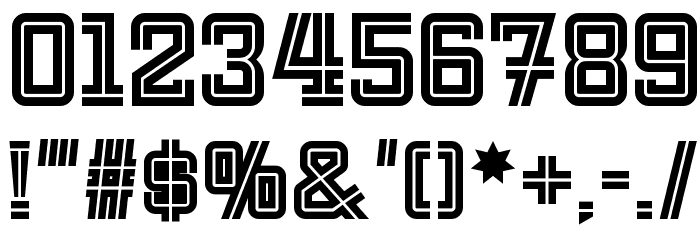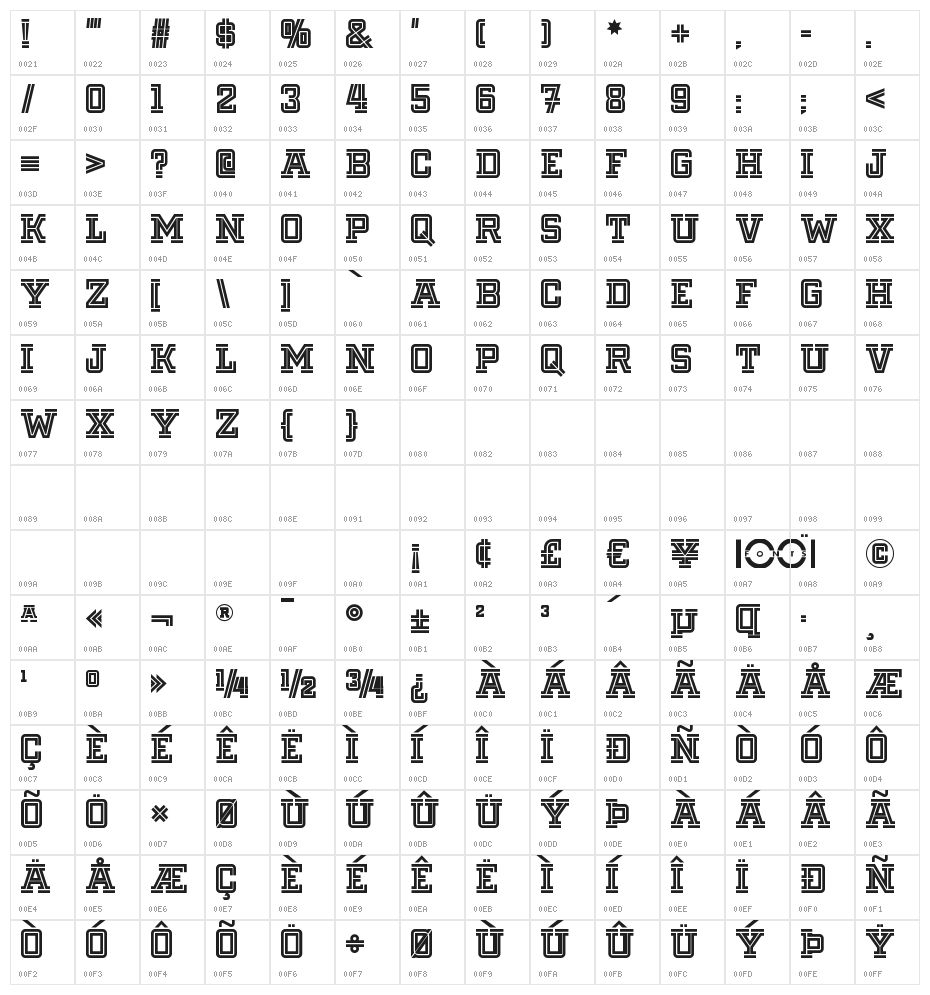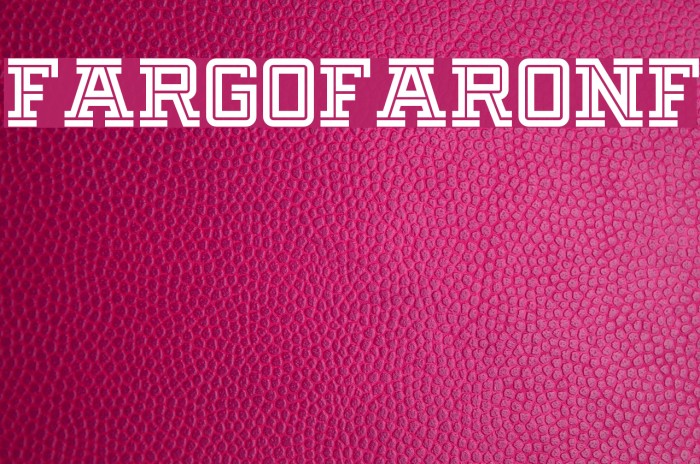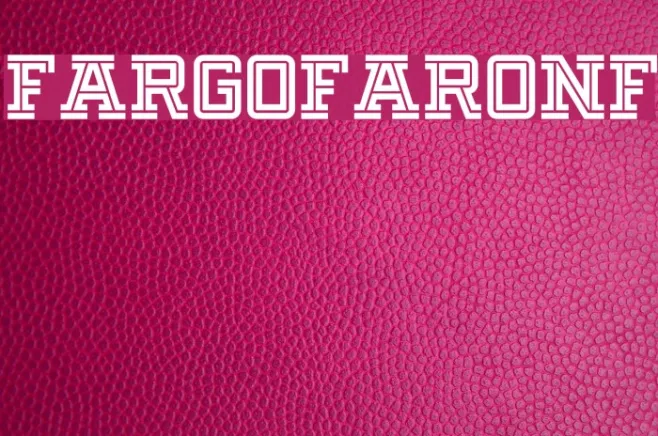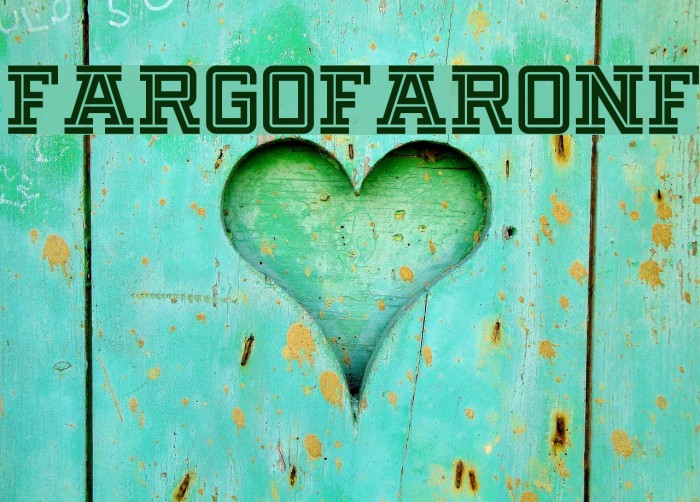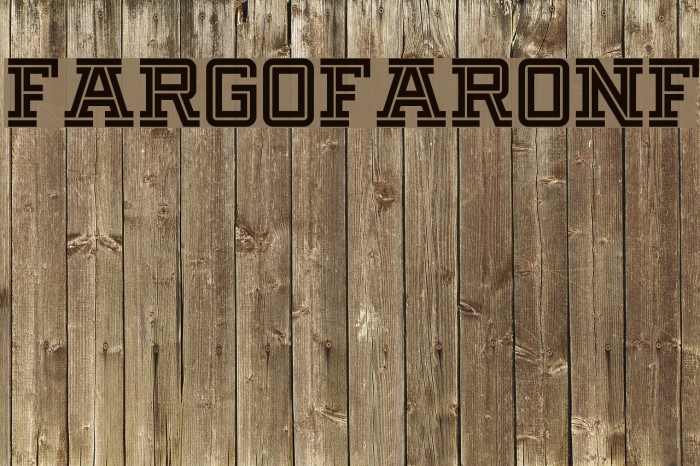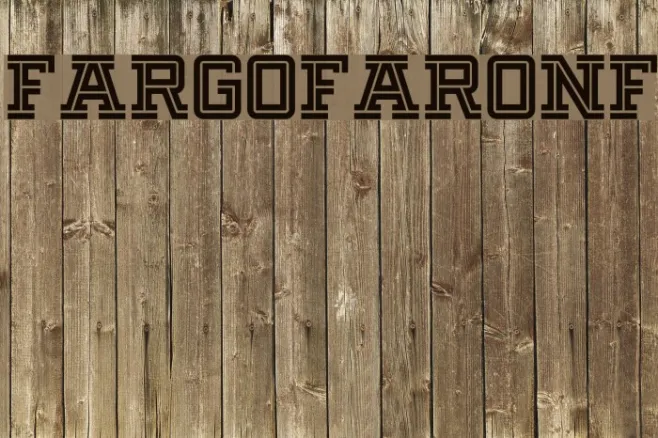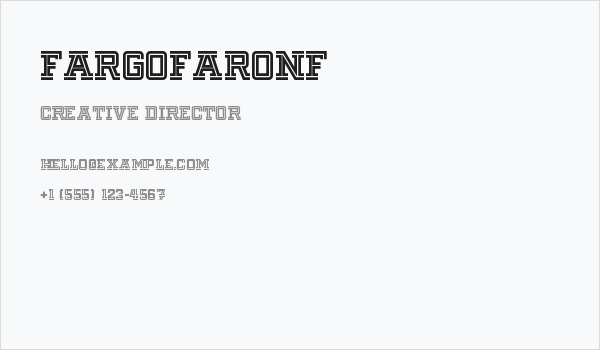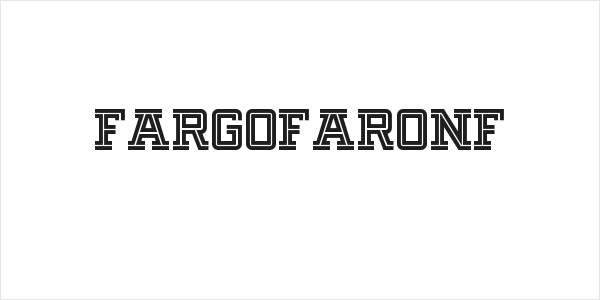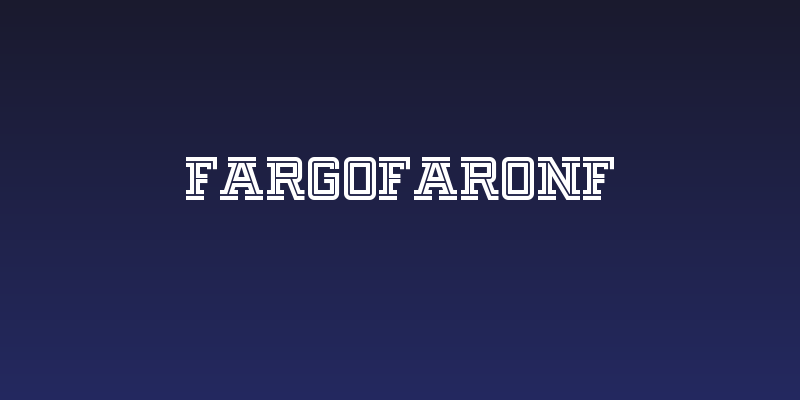
FargoFaroNF Font
FargoFaroNF Description
This font features a bold, decorative style with a strong presence. It has a double-line outline that gives it a dimensional effect, making it stand out prominently. The characters are uppercase and have a geometric structure, with consistent stroke widths that convey a sense of stability and strength. The numbers and special characters follow the same design principles, ensuring uniformity across the typeface. The font's unique style makes it suitable for eye-catching designs where a bold statement is needed.
| Proposed Projects | Ideal for posters, signage, branding, and any project requiring a strong visual impact. |